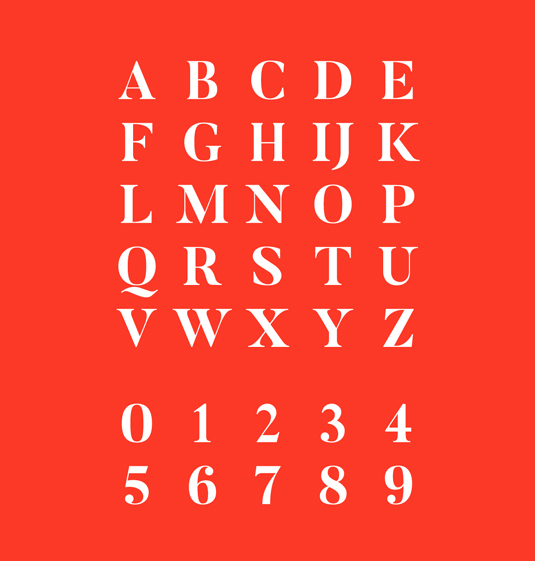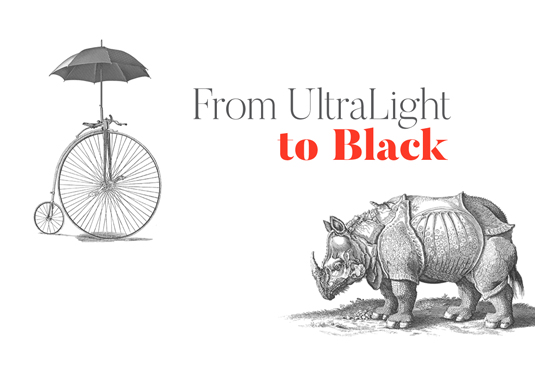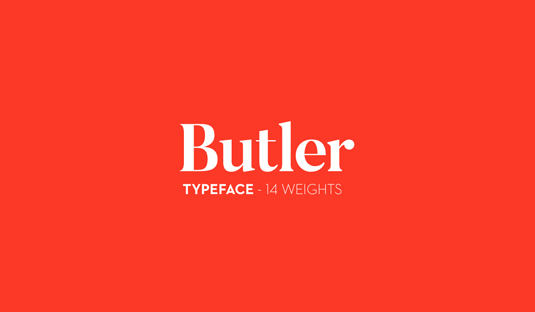
Font of the day: Butler
Butler by Fabian De Smet
Today's typeface of choice is Butler, by graphic designer Fabian De Smet. "Butler is a free serif typeface inspired by both Dala Floda and the amazing Bodoni family", he comments.
"The main goal was to bring a bit of modernism to serif fonts by working on the curves of classical serif fonts and adding an extra stencil family. Great for posters, very big titles, books and more, the highly contrasted butler typeface is pleased to be at your service."